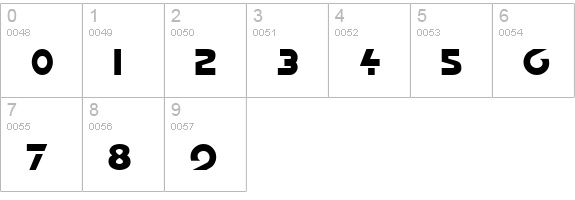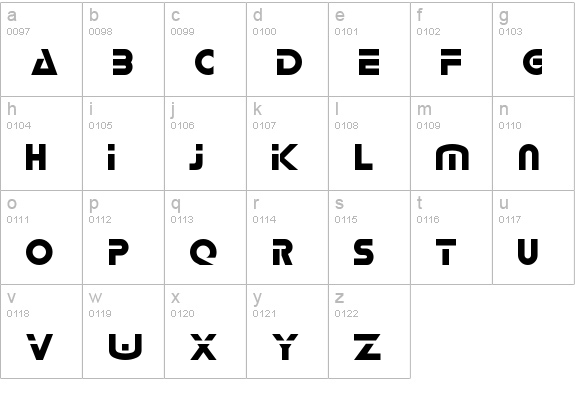
Parabel font is a modern and stylish typeface that effortlessly blends elegance with simplicity. Its sleek and clean lines make it perfect for a wide range of design projects, from branding to editorial design. With its versatile and timeless appeal, Parabel font adds a touch of sophistication to any project. What sets Parabel font apart is not only its aesthetic appeal but also its accessibility. This high-quality font is available for free download at FontsMarket.com, making it the perfect choice for designers looking for a premium font without the price tag. Whether you're working on a logo, website, or print design, Parabel font offers the versatility and quality you need to bring your vision to life.